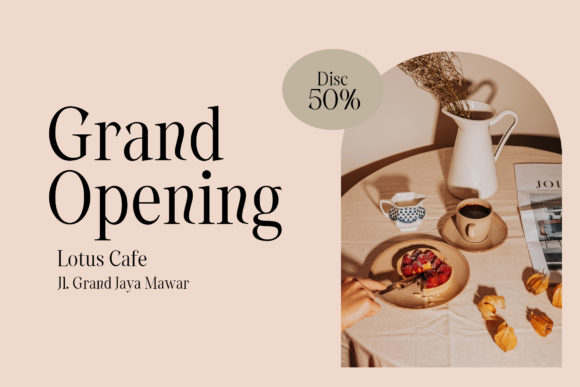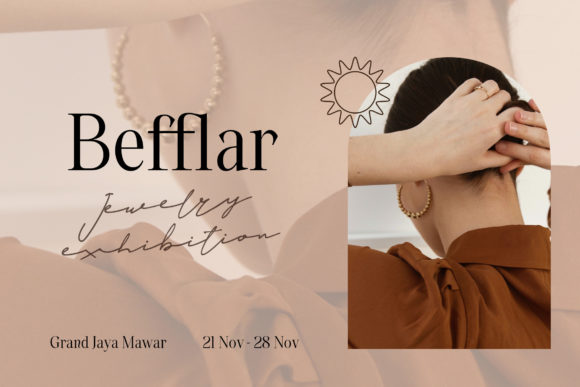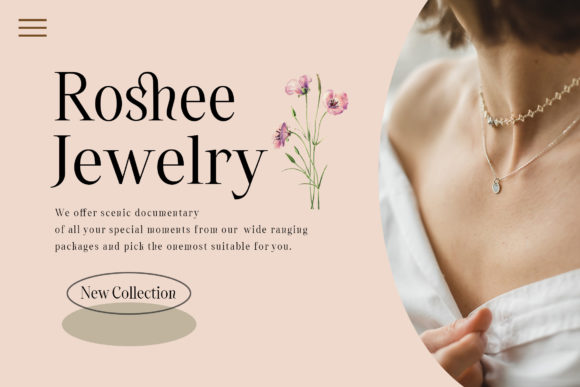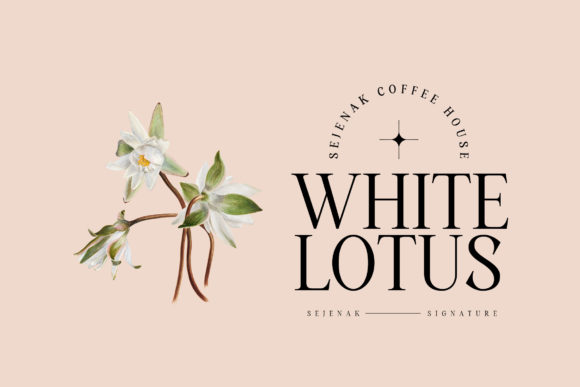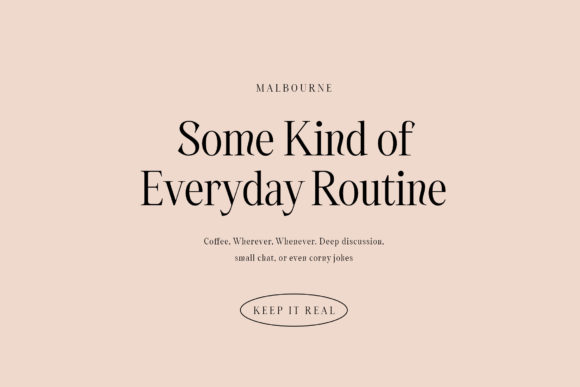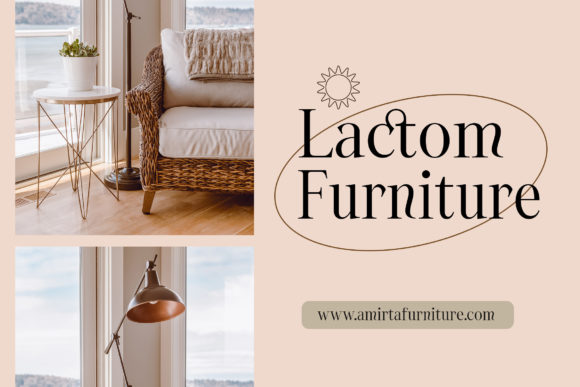
Introduction to Quinshe Font
Quinshe is an elegant and authentic serif font.
Fall for its ravishing style and use it to create gorgeous wedding invitations, beautiful stationary art, eye-catching social media posts, and much more .